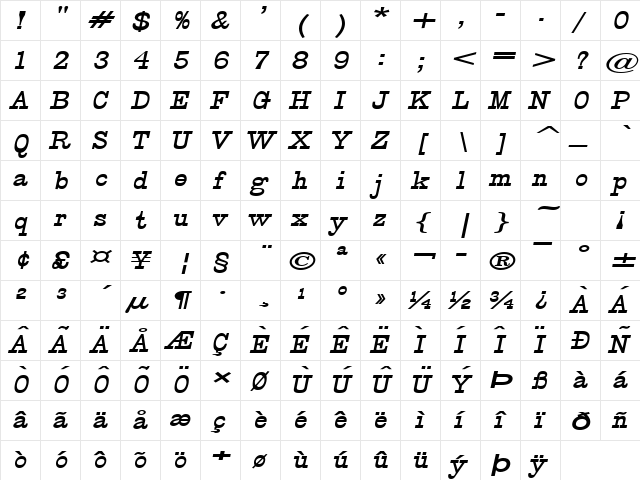
Clown Wide BoldItalic
Design Context for Clown Typeface
Clown is a composed and adaptable typeface that performs quietly and consistently across a wide range of design contexts. Its italic angle brings a sense of urgency and motion to the letterforms. The heavy weight commands attention and anchors typographic hierarchies.
Pro Tip: Use Clown for emphasis, pull quotes, and subheadings where its slanted energy can add rhythm to the layout.